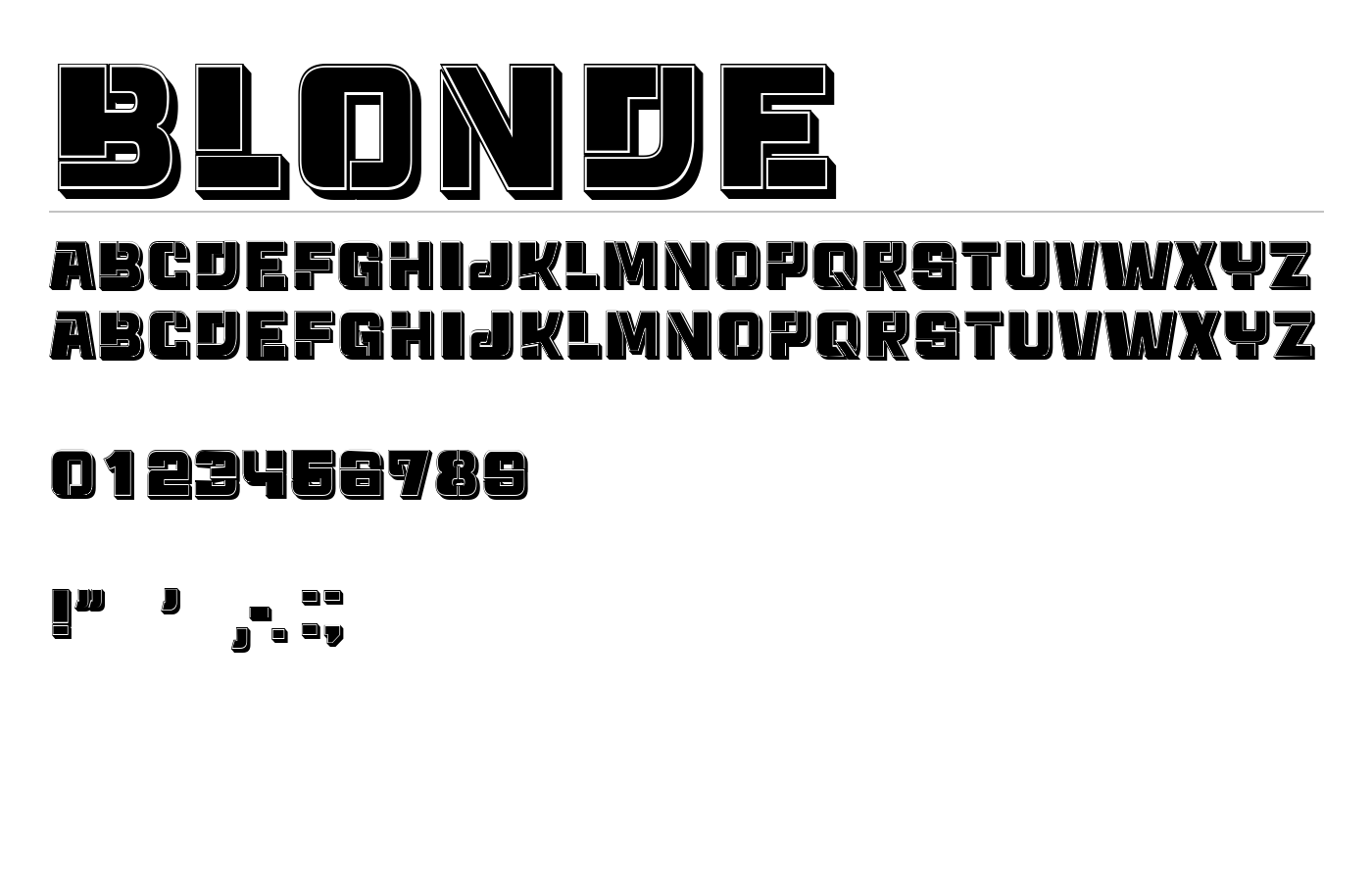
Blonde Font is a bold, condensed sans serif typeface with strong geometric shapes and a striking 3D shadow effect that adds depth and retro flair. Its all-uppercase design with clean, blocky letterforms makes it perfect for eye-catching headlines, logos, and posters where a powerful and modern vintage vibe is desired. This font stands out in branding and display uses, delivering personality and impact with every letter.
Blonde Font
About Blonde Font